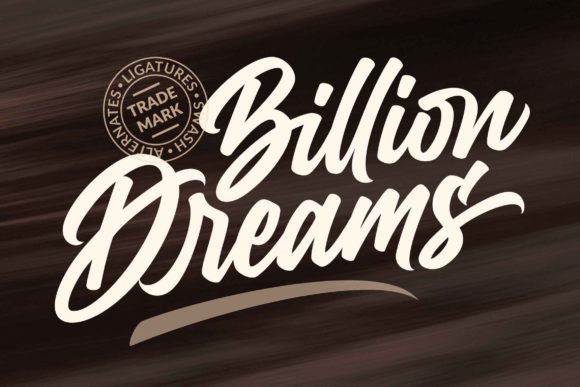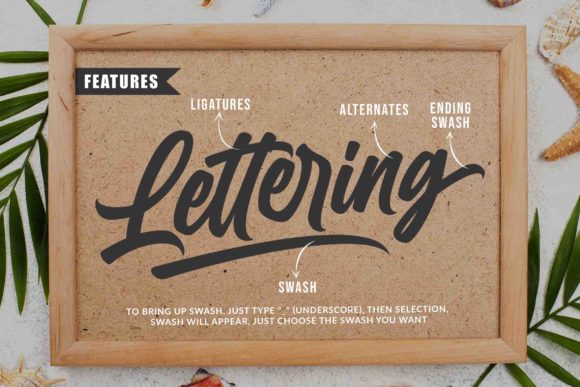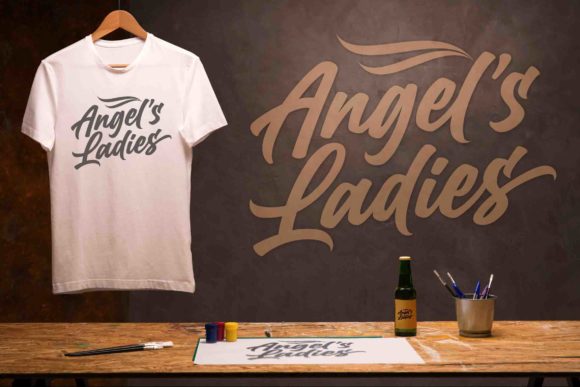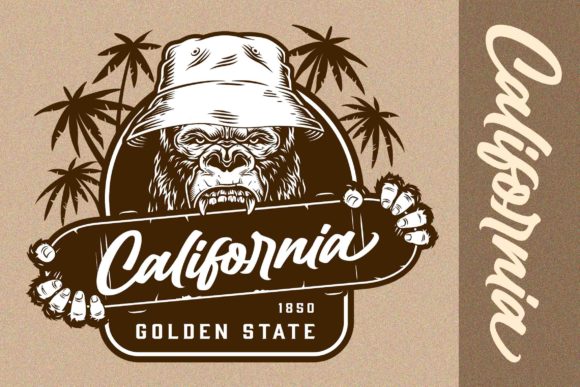
Billion Dreams Font: Elegant Handwritten Script for Wedding Design
About the Billion Dreams Font
Discover the charm of Billion Dreams Font. This font is a perfect blend of modern aesthetics and classic appeal. Billion Dreams is a magical handwritten font carefully created with a touch of elegance. It will elevate a wide range of design projects to the highest level, be it branding, headings, wedding designs, invitations, signatures, logos, labels, and much more!
Billion Dreams Font Usage Examples
Billion Dreams Font Example